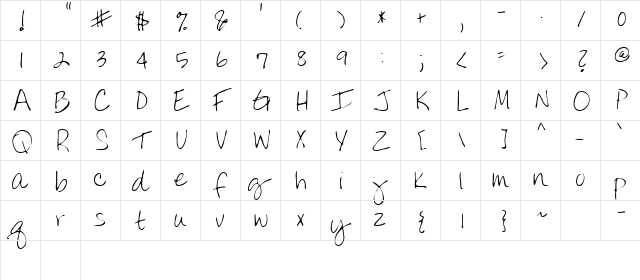
Lindy Regular
Design Context for Lindy Typeface
Lindy is a composed and adaptable typeface that performs quietly and consistently across a wide range of design contexts.